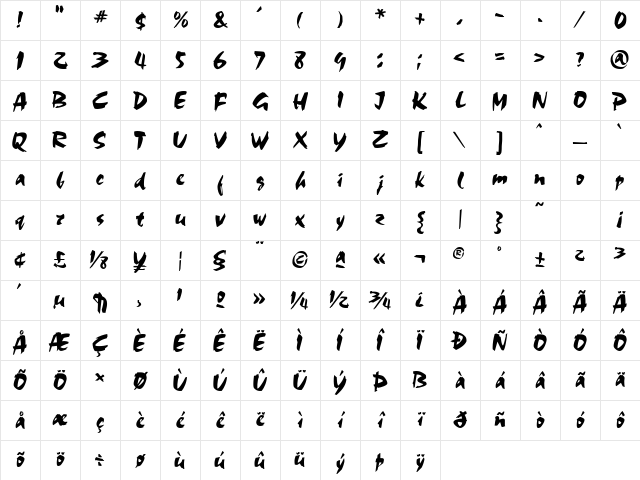
Ricochet Regular
Ricochet Family
Complete Ricochet Regular glyph index. Displaying only characters natively supported by Ricochet Regular font.
Design Context for Ricochet
Ricochet is a composed and adaptable typeface that performs quietly and consistently across a wide range of design contexts.